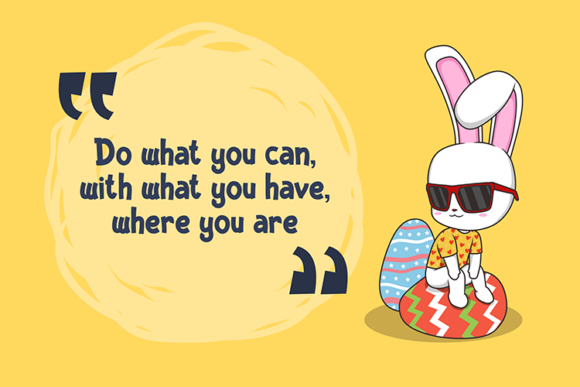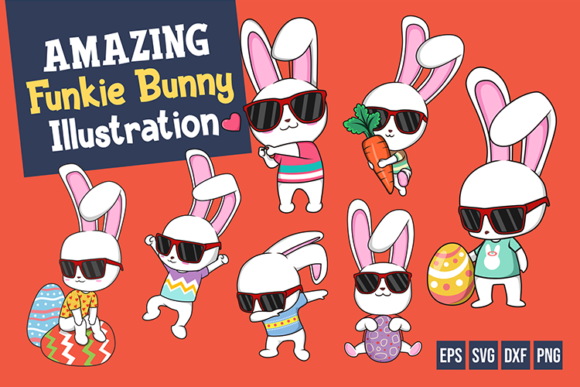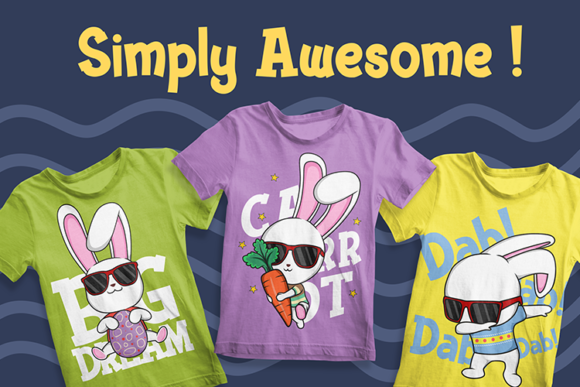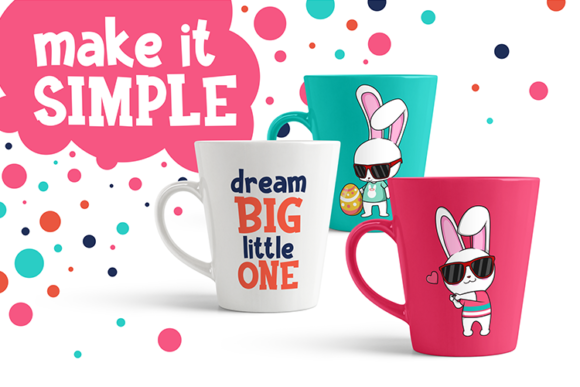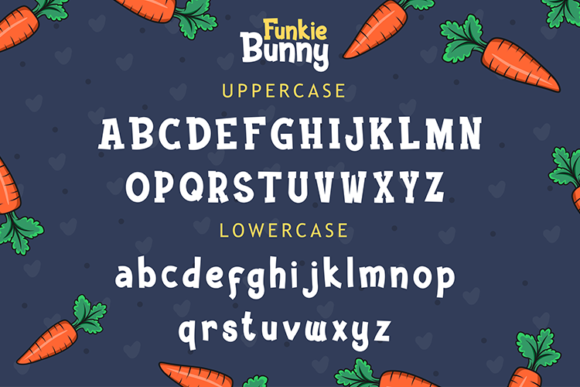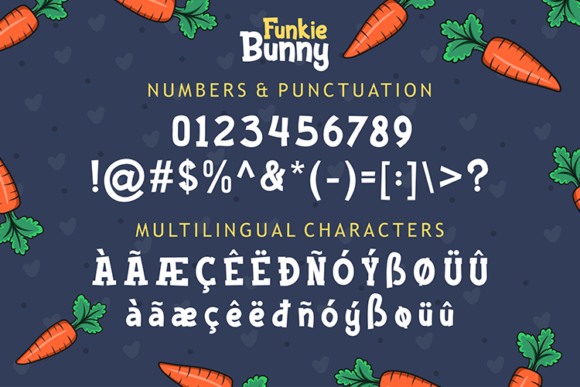
Spring into Creativity with the Funkie Bunny Font
Have you ever been working on a design project and suddenly, a burst of inspiration hits you? Maybe it’s a quirky illustration, a playful color scheme, or a whimsical font that transports you to a world of joy and wonder. For designers, those eureka moments are the best, and today, we’re excited to share one such treasure with you – the Funkie Bunny Font.
Imagine a font that combines the magic of Easter with the charm of rabbits, and you get the Funkie Bunny Font. This delightful typeface is designed to bring a smile to your face and a dash of whimsy to your designs. With 7 adorable illustrations to boot, it’s the perfect addition to your design toolkit. Whether you’re creating quotes, logotypes, badges, or packaging, the Funkie Bunny Font is sure to make your projects stand out.
Funkie Bunny Font Key Features
- Font Style: Funky, Hand-Drawn Font
- Unique Characteristics: Includes a variety of special characters, such as smiley faces and speech bubbles, to add a playful touch
Funkie Bunny Font Review
Overall, I think the Funkie Bunny Font is a fun, quirky addition to any design project. The designer has done a great job of capturing the playful spirit of the name.
- The Funkie Bunny Font has a unique, hand-drawn feel that’s perfect for adding a touch of whimsy to designs.
- The font is highly customizable, with a range of styles and weights available.
- The designer has included a wide range of punctuation and symbol options, which is always a plus.
- The Funkie Bunny Font may not be the best choice for formal or professional designs, as its playful feel can come across as unprofessional.
- The font is not as polished as some other options, with a few rough edges and inconsistencies in the design.
In terms of overall impression, I think the Funkie Bunny Font is a great choice for designers who want to add a bit of fun and personality to their work. While it may not be the most polished option, its unique feel and high level of customization make it a great choice for the right project.
Funkie Bunny Font is perfect for:
1. Creating playful and whimsical designs.
2. Adding a touch of personality to your branding.
3. Designing children’s products or educational materials.
4. Creating eye-catching social media graphics.
Alternatives to Funkie Bunny Font
Great Vibes is a playful, handwritten font suitable for creating a carefree and whimsical atmosphere. It’s ideal for use in headings, titles, and quotes that need a touch of personality.
Compared to Funkie Bunny Font, Great Vibes has a more refined and elegant look, making it suitable for a wider range of designs. It’s a great choice when you want a similar playful feel without the cutesy factor.
Pacifico is a beautiful, elegant script font that evokes a sense of relaxation and sophistication. It’s perfect for use in headings, titles, and body text that need a touch of luxury.
Compared to Funkie Bunny Font, Pacifico has a more refined and sophisticated look, making it suitable for high-end designs and luxury brands. It’s a great choice when you want a elegant and sophisticated font without the whimsy.
Crimson Text is a modern, elegant serif font that’s perfect for use in body text and headings. It’s suitable for a wide range of designs, from corporate to creative projects.
Compared to Funkie Bunny Font, Crimson Text has a more serious and professional look, making it suitable for use in formal designs and business communications. It’s a great choice when you want a elegant and sophisticated font without the whimsy.
Playfair Display is a luxurious, elegant serif font that’s perfect for use in headings and titles. It’s suitable for high-end designs, luxury brands, and special occasions.
Compared to Funkie Bunny Font, Playfair Display has a more refined and sophisticated look, making